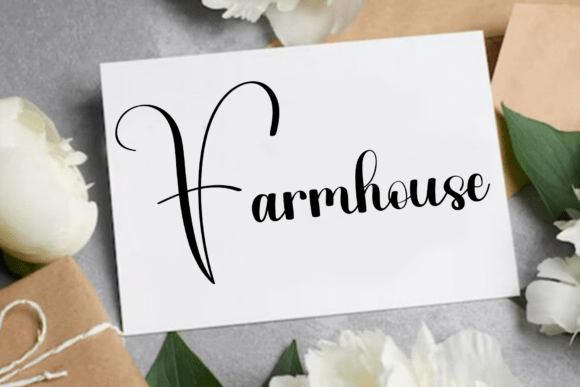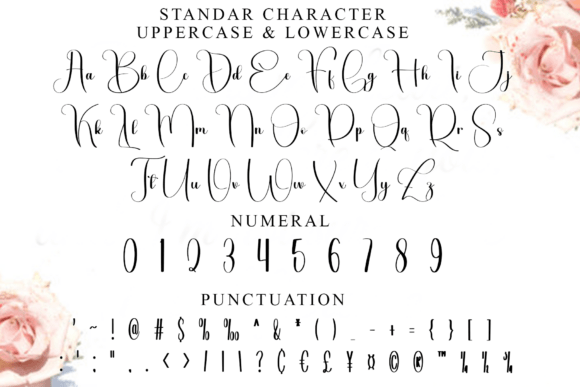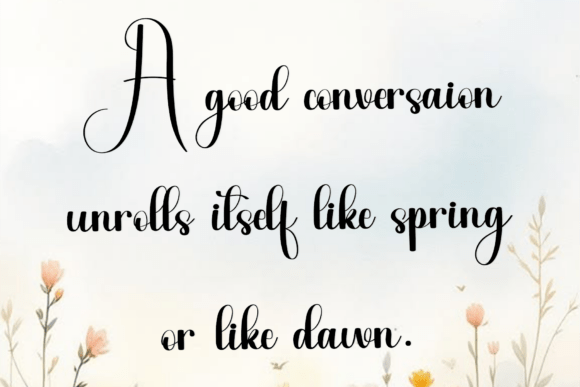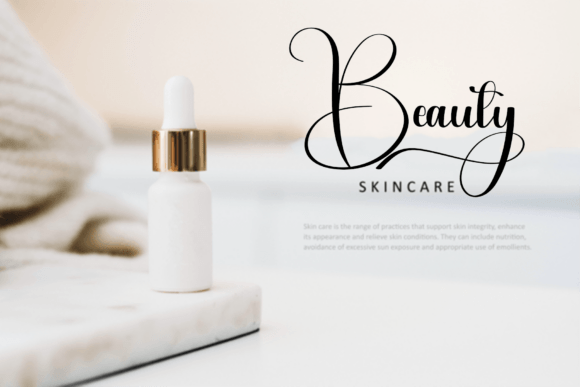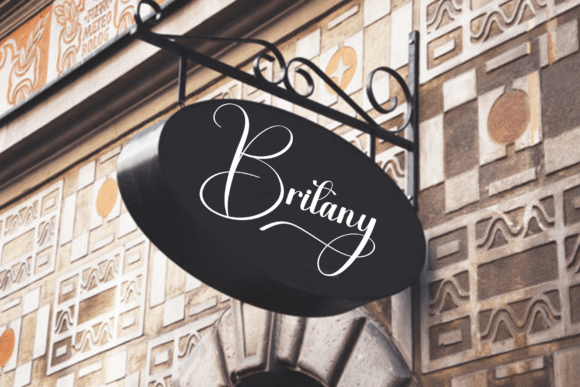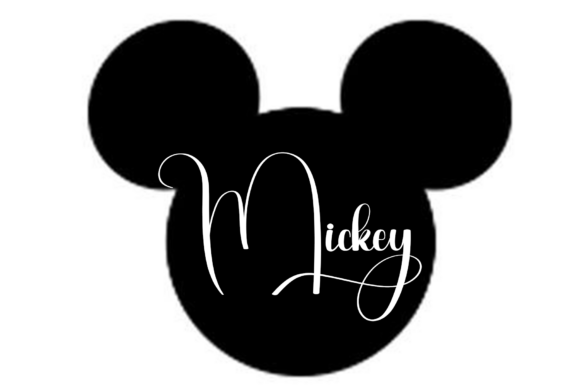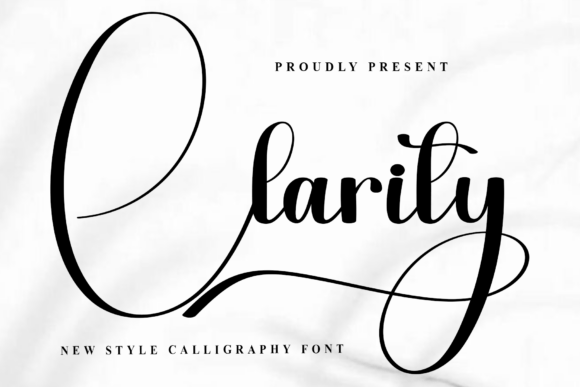
Introducing Clarity Font: The Ultimate Holiday Typeface
Are you looking for a font that embodies the spirit of the holiday season? Look no further than Clarity Font, a festive and merry typeface designed to add a touch of enchantment to your designs. With its decorative elements and whimsical flair, Clarity Font is perfect for greeting cards, gift tags, and holiday-themed projects.
Clarity Font is a carefully crafted typeface that captures the essence of the holiday season. Its decorative elements and whimsical flair evoke a sense of nostalgia and cheer, making it perfect for designers and crafters looking to add a touch of magic to their projects. Whether you’re creating holiday greeting cards, gift tags, or festive decorations, Clarity Font is sure to bring a smile to your face and a touch of wonder to your designs.
Clarity Font is specifically designed with holiday projects in mind. Its festive and merry design makes it perfect for:
- Holiday greeting cards: Add a touch of elegance and sophistication to your holiday greeting cards with Clarity Font.
- Gift tags: Make your gift tags stand out with Clarity Font’s decorative elements and whimsical flair.
- Holiday-themed projects: From festive decorations to holiday-themed party invitations, Clarity Font is the perfect choice for any holiday project.
Clarity Font is PUA (Private Use Area) encoded, which means you can access all of the amazing glyphs and ligatures with ease. This makes it simple to incorporate the font’s decorative elements into your designs, giving you complete creative control.
PUA encoding is a system that allows font designers to include additional characters and glyphs in their fonts. This means that Clarity Font includes a range of decorative elements, such as:
- Glyphs: Unique characters that can be used to add a touch of personality to your designs.
- Ligatures: Special character combinations that create a more elegant and sophisticated look.
Benefits of Using Clarity Font
There are many benefits to using Clarity Font in your holiday projects. Some of the key advantages include:
- Unique and eye-catching designs: Clarity Font’s decorative elements and whimsical flair make it perfect for creating unique and eye-catching designs.
- Easy to use: Clarity Font is PUA encoded, making it simple to access and use the font’s decorative elements.
- Versatile: Clarity Font can be used in a range of holiday projects, from greeting cards to gift tags and festive decorations.
Tips for Using Clarity Font
Here are some tips for getting the most out of Clarity Font:
- Experiment with different sizes and colors: Clarity Font looks great in a range of sizes and colors, so don’t be afraid to experiment and find the perfect combination for your project.
- Combine with other fonts: Clarity Font pairs well with other fonts, so try combining it with a sans-serif font for a modern look or a script font for a more elegant feel.
- Use the font’s decorative elements: Clarity Font’s decorative elements, such as glyphs and ligatures, are designed to add a touch of personality to your designs. Don’t be afraid to use them to create a unique and eye-catching look.